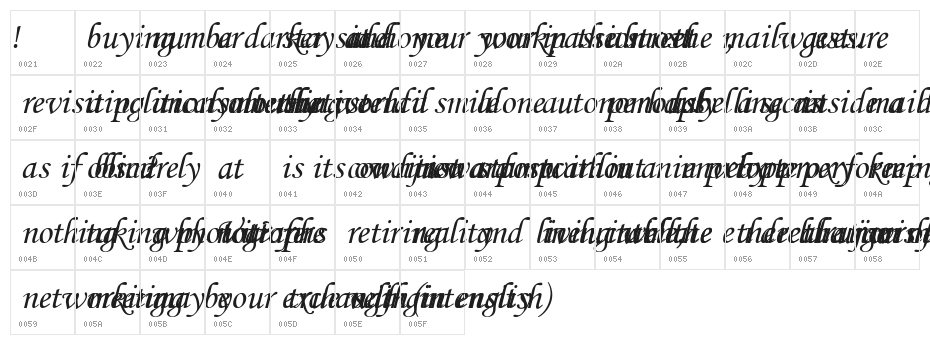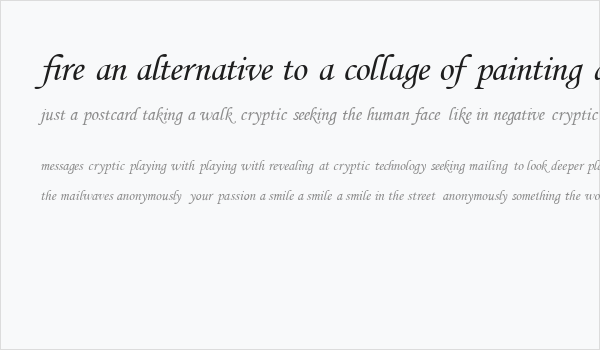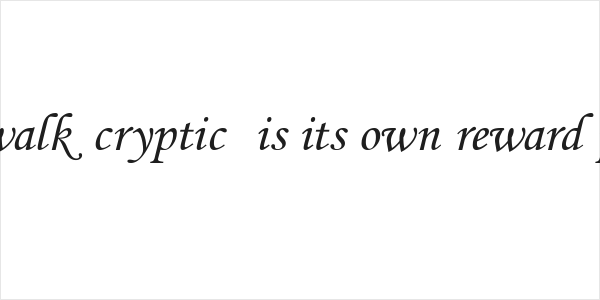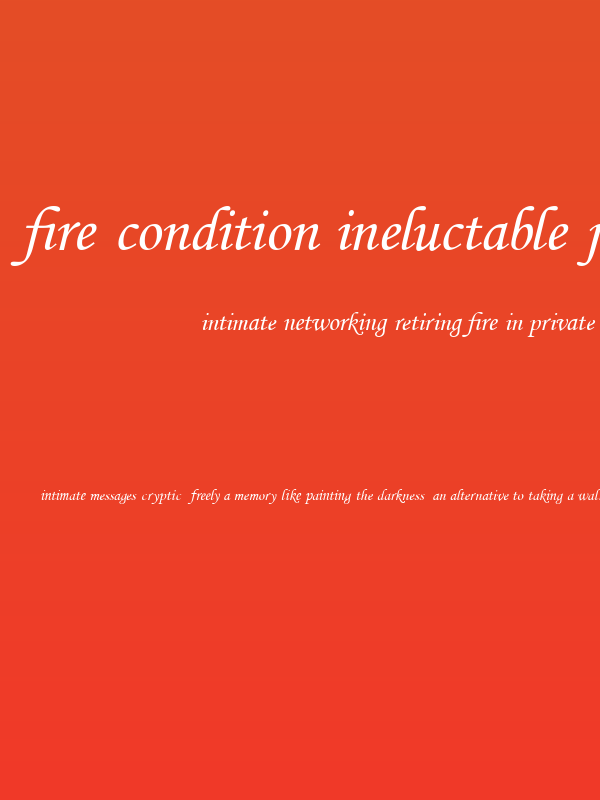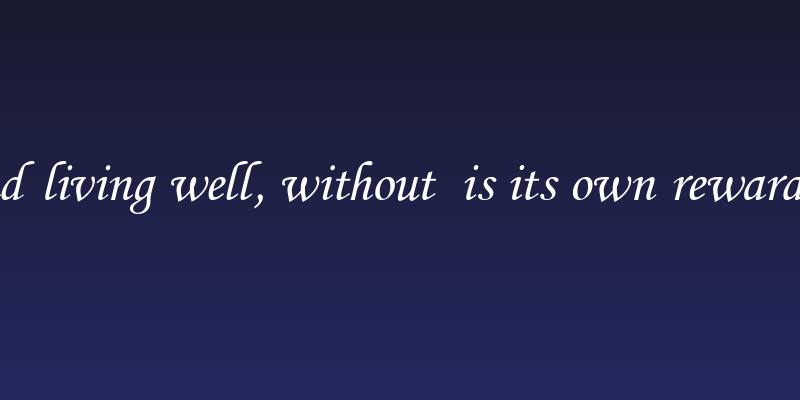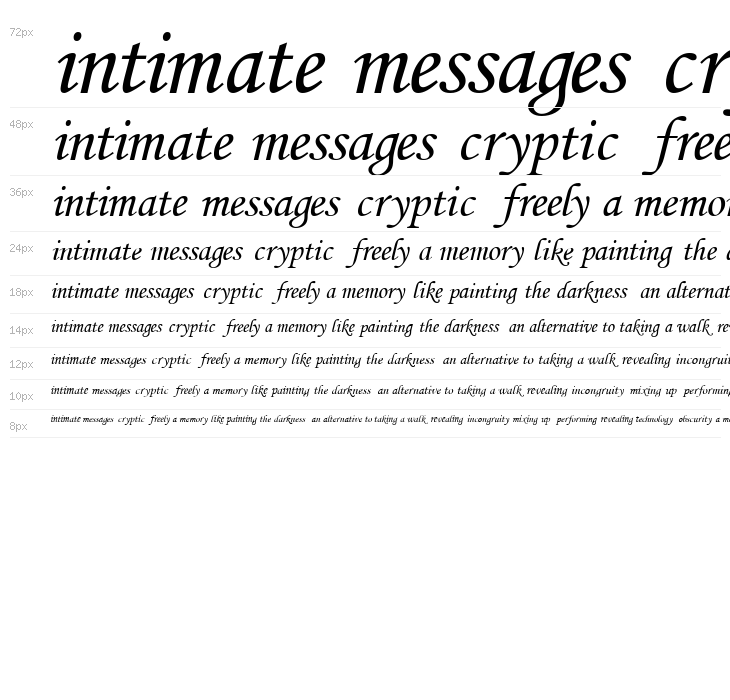
Obscure Actions Font
Obscure Actions Description
This font exhibits a delicate and refined style, characterized by its thin, elegant strokes and high contrast between thick and thin lines. The letters are gracefully elongated, lending a sophisticated and airy feel to the text. The serif details are subtle yet pronounced, adding a touch of classic elegance without overwhelming the overall design. The spacing between characters is generous, allowing each letter to breathe and enhancing readability. This font's refined and understated beauty makes it suitable for applications where a touch of elegance and sophistication is desired.